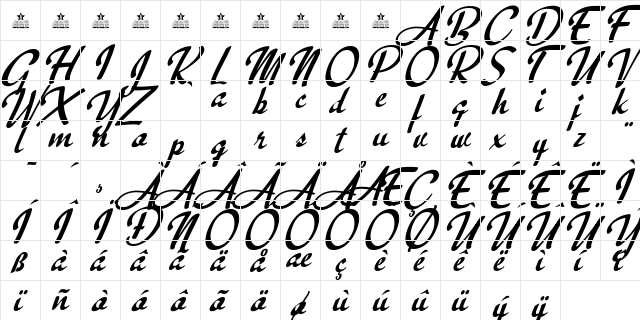
Clarification Personal Use Regular
| Foundry | Billy Argel |
| Designer | Billy Argel |
Design Context for Clarification Personal Use Typeface
Clarification Personal Use takes a measured approach to typography — its balanced proportions and neutral character make it a reliable workhorse for both digital and print work.